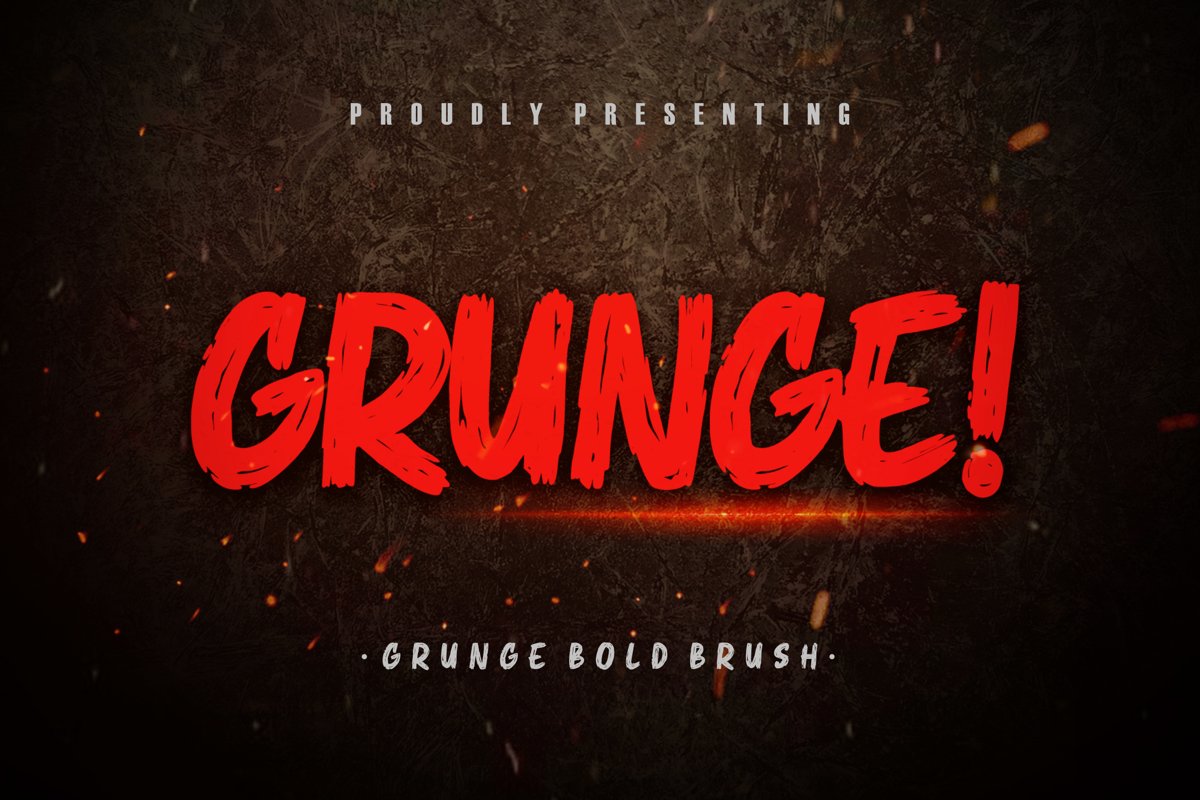
Grunge! Bold Brush Typeface
Grunge
Grunge! is a grunge, metal and rock & roll font for music concert events.
Grunge! is perfect for branding projects, logo, wedding designs, social media posts, advertisements, product packaging, product designs, label, photography, watermark, invitation, stationery and any projects that need handwriting taste.What's Included :